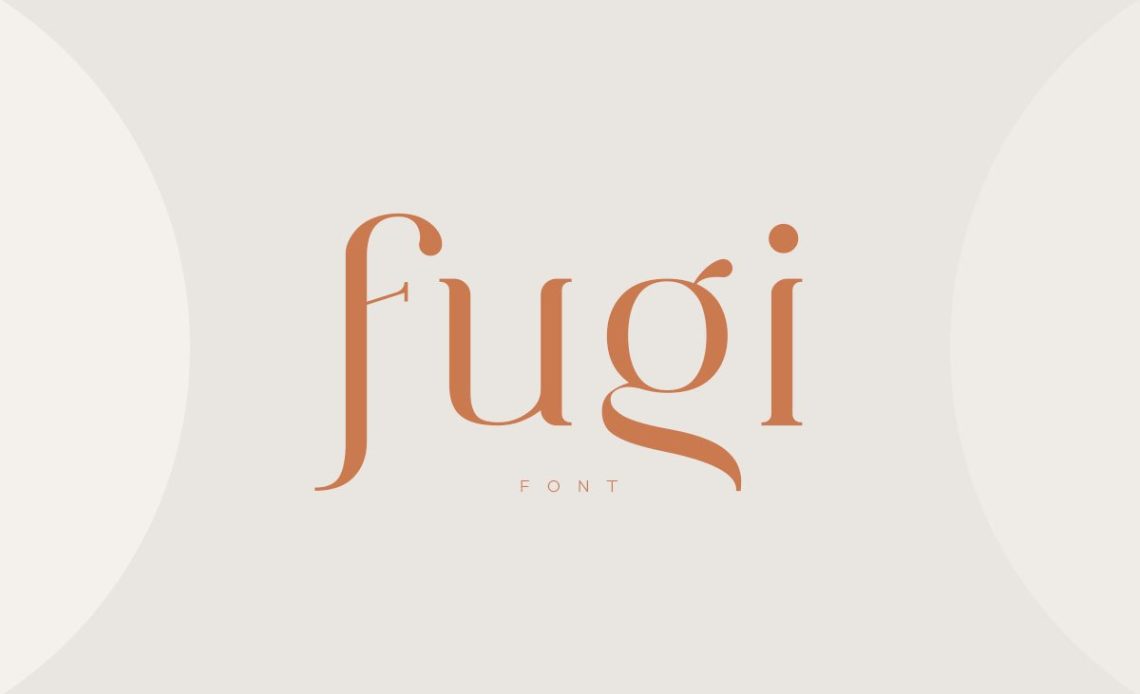
Looking for the best font to make your music website stand out? Look no further than Fugi Font! Created by the talented designer Agung Syaifudin, Fugi Font is a modern and stylish serif font that will give your text a unique and eye-catching look.
Fugi Font is perfect for music websites and other creative projects, thanks to its beautiful alternate glyphs that add an extra level of creativity and style to your text. Whether you're creating a logo, a headline, or just some text for your website, Fugi Font will make your words stand out and grab your reader's attention.